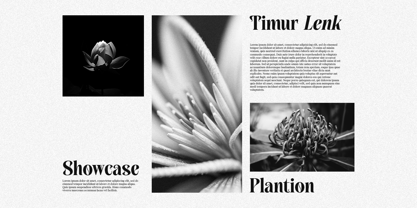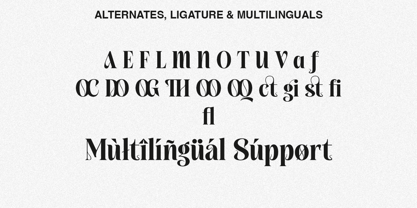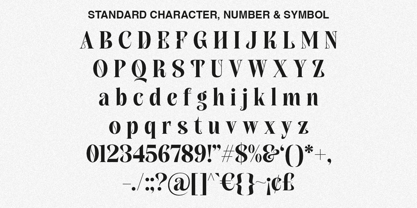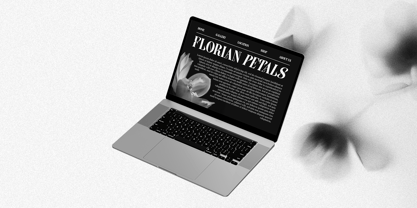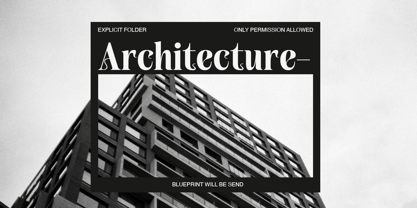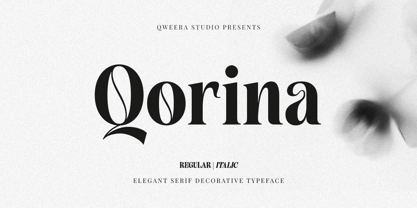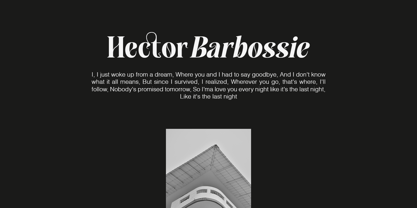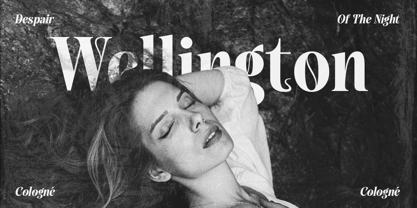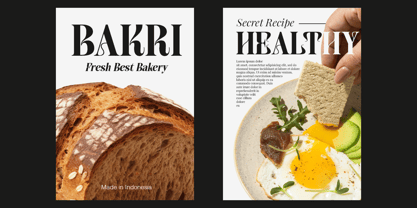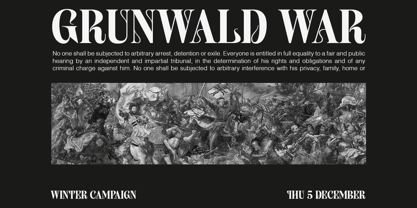
Qorina
La familia tipográfica Qorina fue diseñada por Idhham Cholid Rikzano Yahya y publicada por Qweera Studio. Qorina contiene 2 estilos y opciones de paquete familiar. Más información sobre esta familia
Introducing Qorina, an elegant Display Serif font that exudes luxury and sophistication. This exquisite typeface is filled with a variety of attractive alternates and ligatures, making it perfect for high-end branding, fashion editorials, and upscale packaging. Prestige Edition is available in both regular and italic versions, offering versatility for your creative projects. Elevate your designs with the timeless elegance of Qorina.